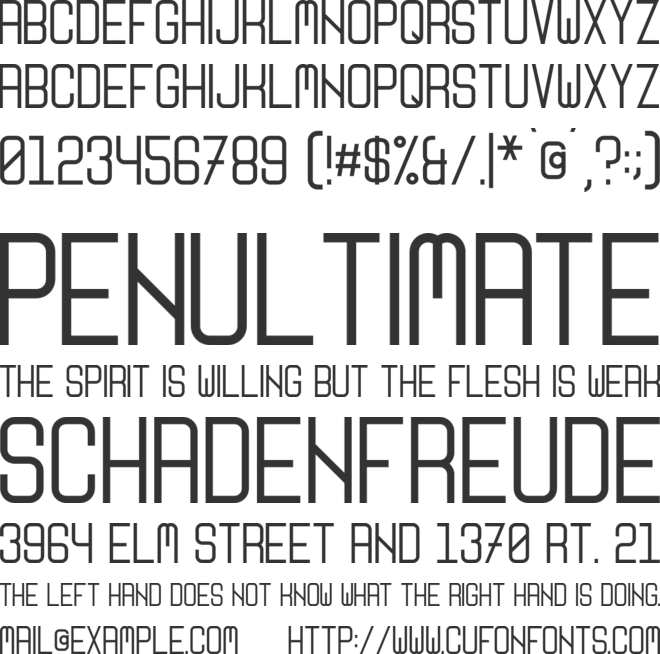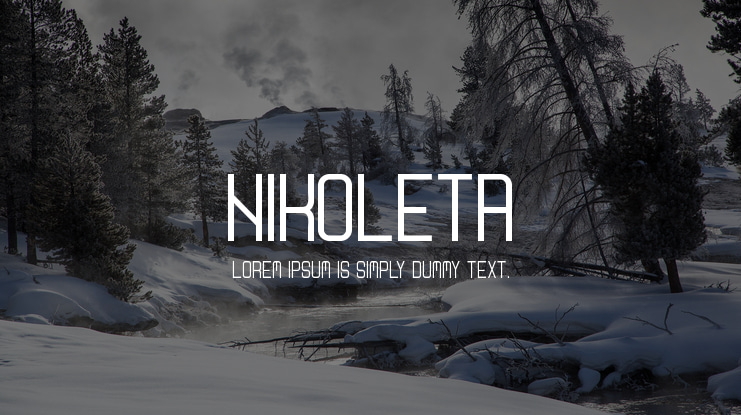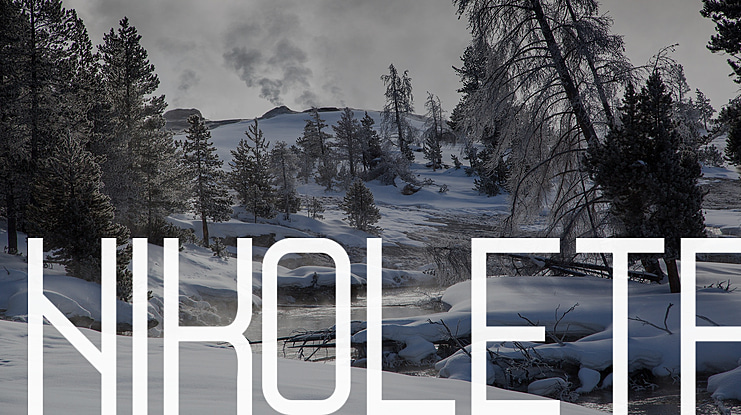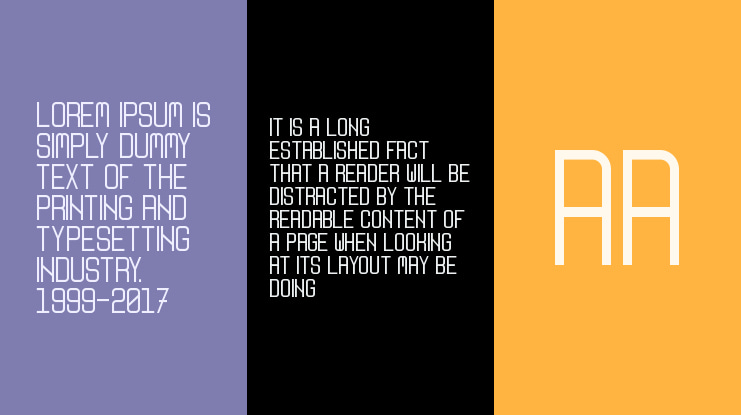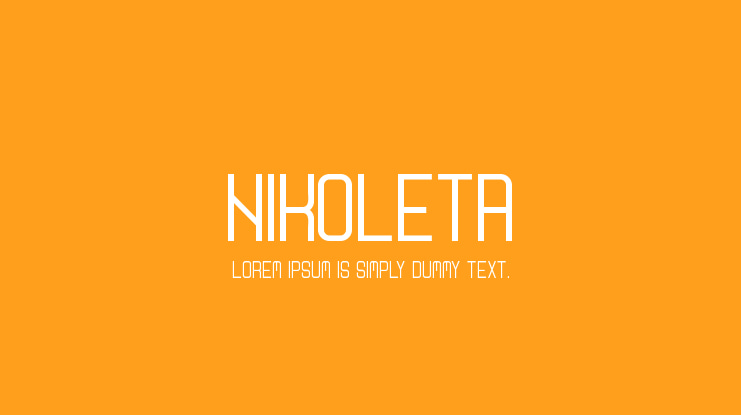
Nikoleta Font
Boris Garic
Nikoleta Typeface was the very first font I created back in 2015. It supported only the basic character set. Now with over 380 characters, multilingual support, ligatures and more.